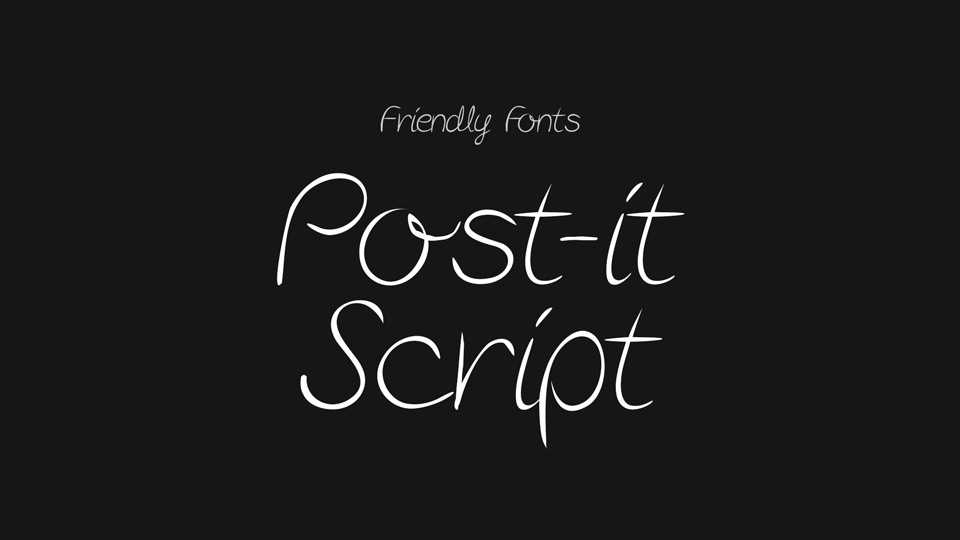
Post-it Script Font › Fontesk – Fonte Grátis
Download Post-it Script font, a casual handwritten typeface, perfect for adding a cheerful vibe to any project. With simple and organic lines, Post-it Script font will bring your creative ideas to life with a naturally beautiful look.